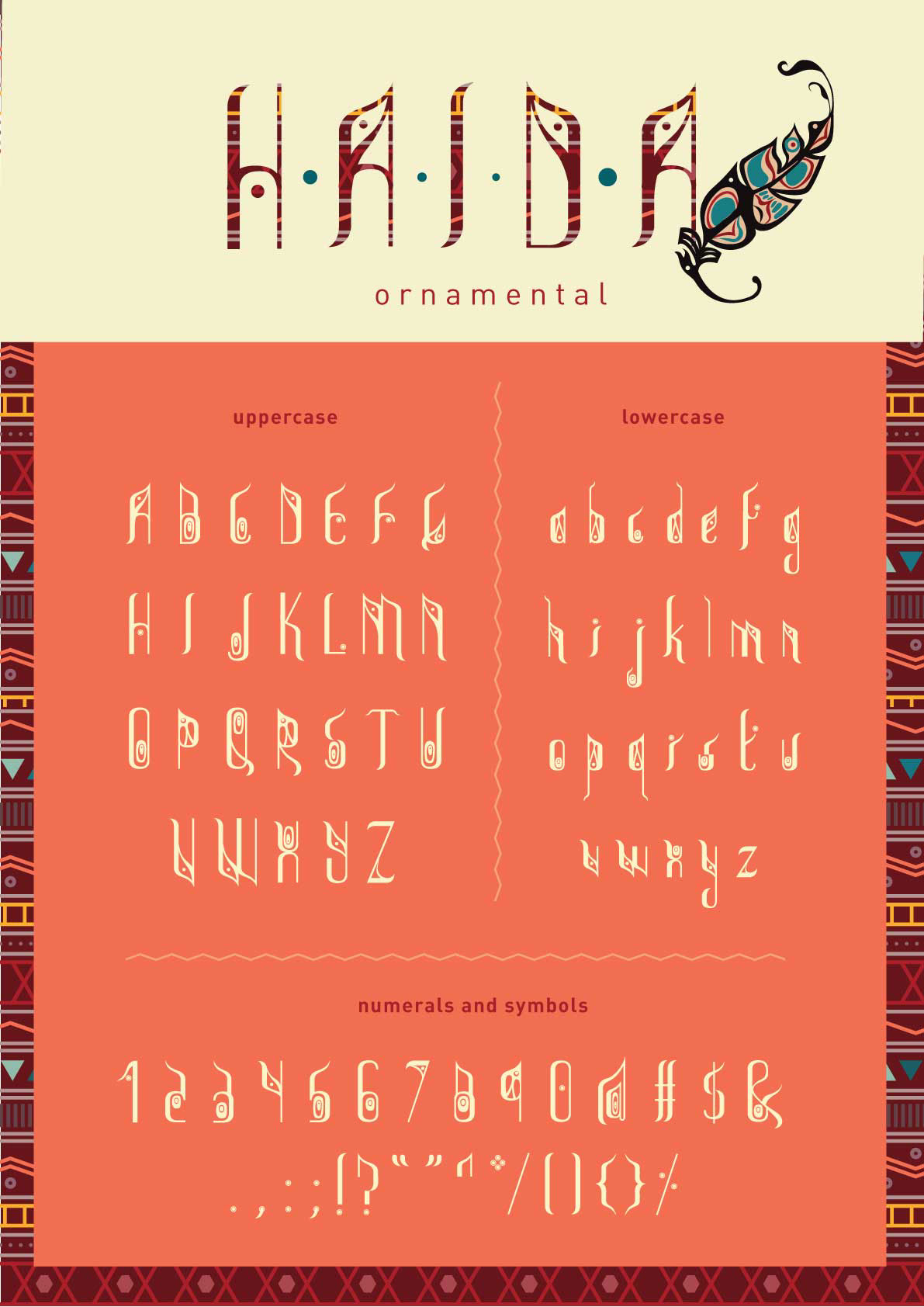
Haida
Free Typeface available in two weights: Basic & Ornamental
A Tribal-Inspired Display Typeface
This typeface design was inspired by 'Copper from The Hood' (2011), an artpeice located in the British Museum. The indigenous people of Canada's Northwest Coast - the Haida tribe - have their very own unique style of art: usually consisting of illustrations with bold curvy lines and circular eyelets. This typeface embodies this style in a comtemparary twist, suitable to be used as headlines or at bigger point sizes.
Moodboard showcasing my inspiration and the unique style of the Haida people.
Haida Basic // Haida Ornamental